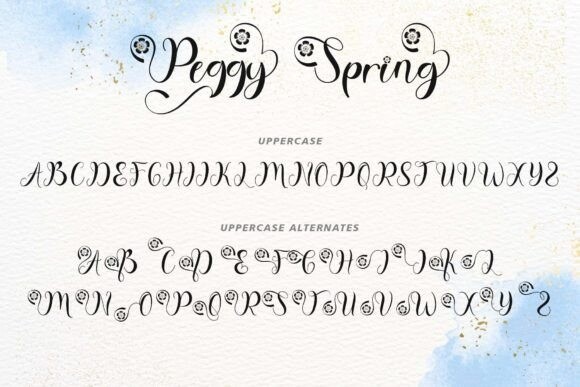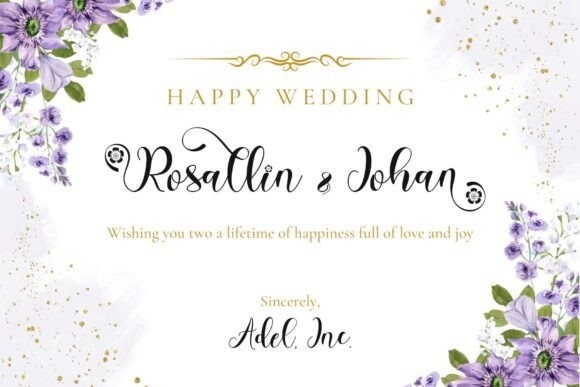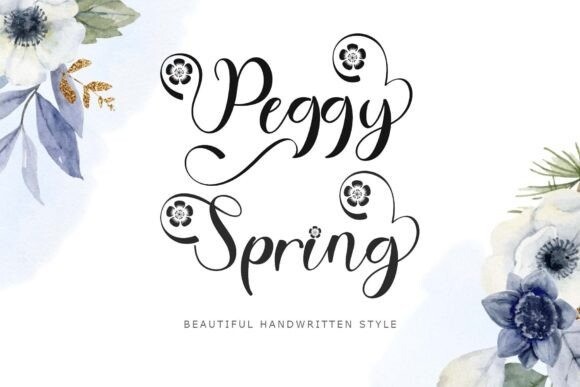
Peggy Spring Font
Peggy Spring Font is a beautiful handwritten font. This font is equipped with uppercase, lowercase, ligatures, numerals, punctuations, swash and multilingual support. Very suitable for spring, summer, banners, posters, stickers, invitations, weddings, engagements and others.